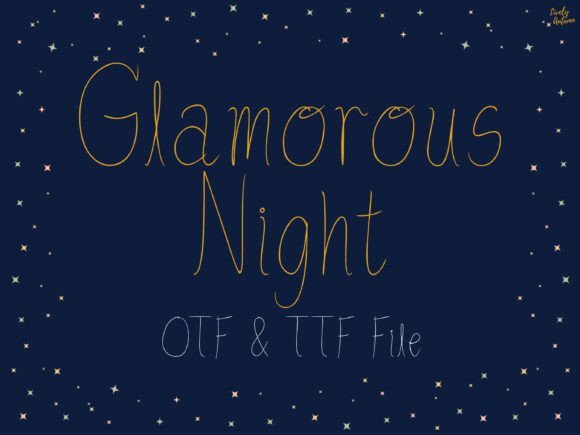
Introduction to Glamorous Night Font
Glamorous Night is an elegant, flowing handwriting font with delicate thin-line strokes, perfect for invitations and upscale events like galas, weddings and various projects.
From invitations to posters, social media graphics, journals, greeting cards, and much more .
Why Choose Glamorous Night Font?
Glamorous Night Font offers exceptional quality and versatility, making it a valuable addition to your design toolkit. Whether you’re creating for personal projects or commercial use, Glamorous Night Font delivers professional results.